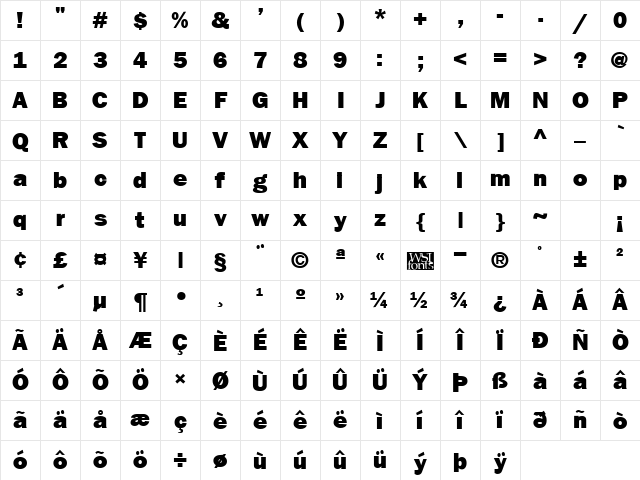
FranzfurtHeavy Regular
Design Context for FranzfurtHeavy
FranzfurtHeavy is a composed and adaptable typeface that performs quietly and consistently across a wide range of design contexts.
Pro Tip: Use FranzfurtHeavy in both headline and body roles to test its range before committing to a single application.